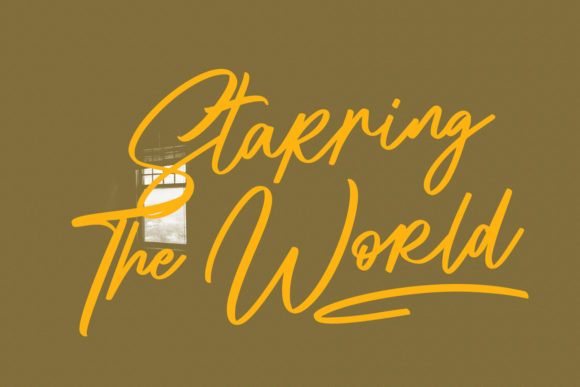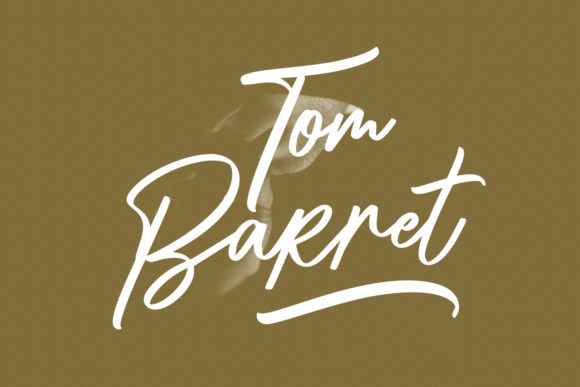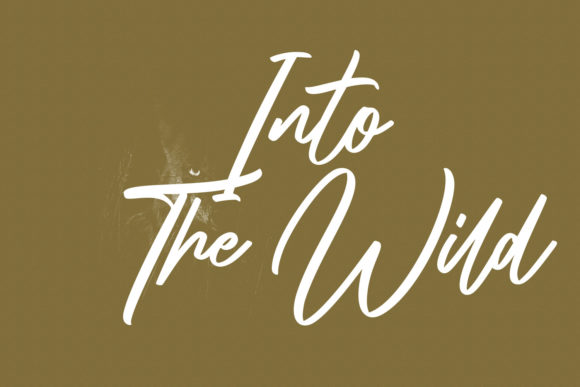
Introduction to Shadyspeed Script Font Font
As a designer, there’s nothing quite like the thrill of bringing a creative project to life. It’s the moment when a blank canvas transforms into a vibrant, eye-catching masterpiece. For me, that moment often starts with the perfect font. And, trust me, I’ve found the one – the Shadyspeed Script Font Font is an absolute game-changer!
This stunning script font is more than just a pretty face; it’s a design resource that’s packed with character. With its unique ligatures and swashes, it adds a touch of sophistication to any project. Whether you’re crafting a logo, designing social media graphics, or creating movie titles, Shadyspeed Script Font Font is the perfect fit. And, the best part? It’s available for free download, making it an accessible high-quality design tool for designers of all levels.
Imagine being able to create stunning, high-quality designs with ease – that’s what the Shadyspeed Script Font Font offers. With its transparent background and wide range of customization options, you’ll be able to bring your creative vision to life in no time. So, why settle for an ordinary font when you can have an extraordinary one? Dive into the world of Shadyspeed Script Font Font and discover a new level of design excellence.
Key Features of Shadyspeed Script Font Font
• High-quality, cursive font ideal for creative projects and design resources
• Features a unique, hand-drawn style with a touch of elegance, making it perfect for branding and typography projects
Honest Review: Shadyspeed Script Font Font
As a designer, I’m always on the lookout for high-quality design resources to elevate my creative projects. Recently, I stumbled upon the Shadyspeed Script Font Font, and I’m excited to share my honest review with you.
What works well: ✨ The Shadyspeed Script Font Font is incredibly versatile and can be used for a wide range of creative projects, from branding and marketing materials to digital art and graphics. The font is available for free download, making it a fantastic addition to any designer’s toolkit.
However, I did encounter some limitations: ⚠️ The font is a bit limited in terms of customization options, and the file size is relatively large, which can make it difficult to use in certain design applications.
Overall, I’m impressed with the Shadyspeed Script Font Font, and I would definitely recommend it to designers looking for a high-quality, free font to add some flair to their creative projects.
The Shadyspeed Script Font Font is ideal for creative projects that require a high-quality, elegant, and unique font. Use it for wedding invitations, branding materials, or any design project that demands sophistication and style.